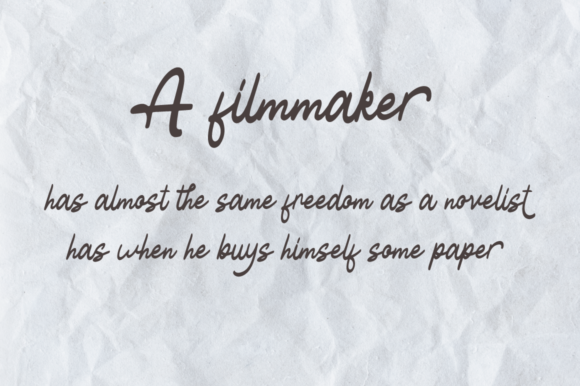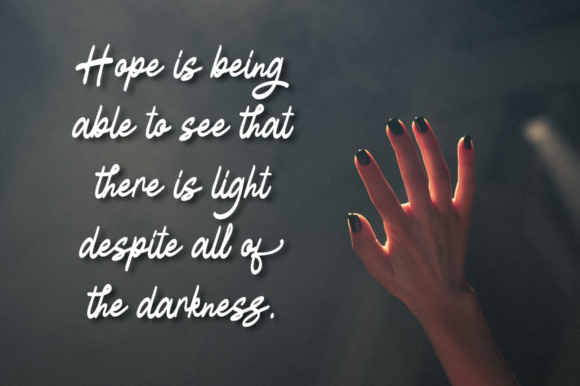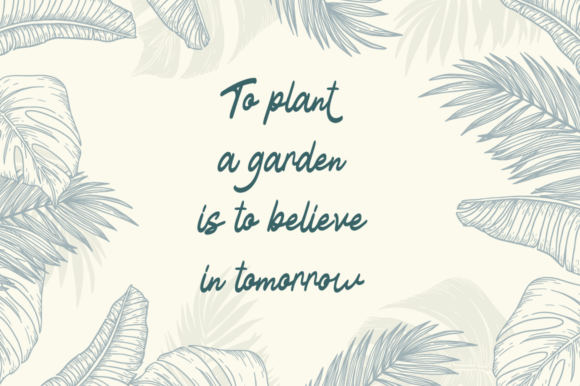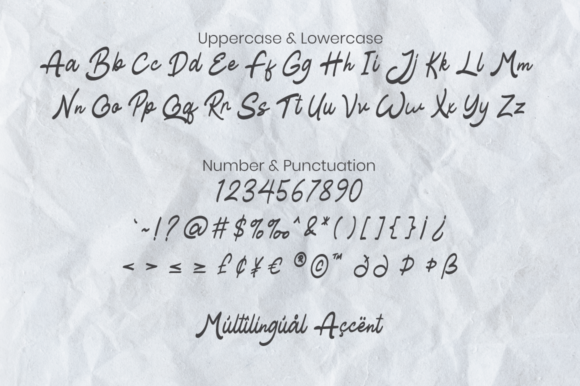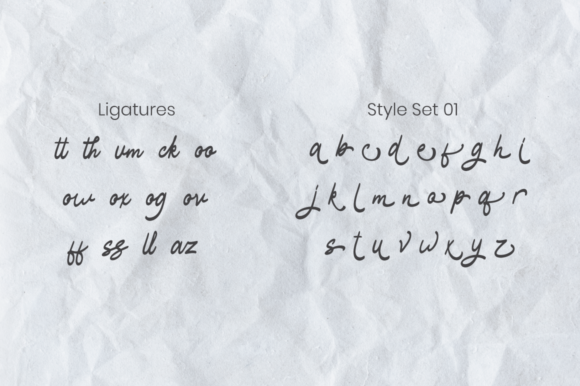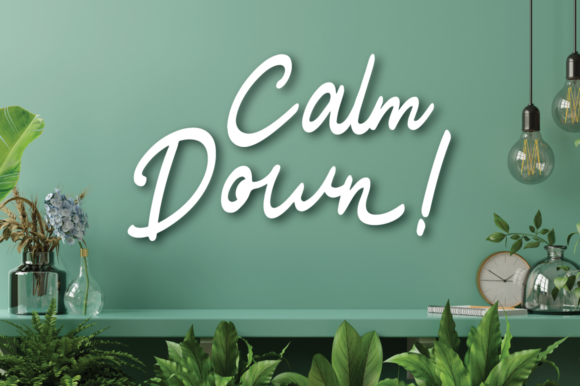
Introduction to Blathe Font
Blathe is a modern handwritten font featuring elegant characters that can elevate the look of any creation.
Use it to create the most spectacular wedding invitations, birthday cards, watermarks, bok titles, labels, and more .
Key Features of Blathe Font